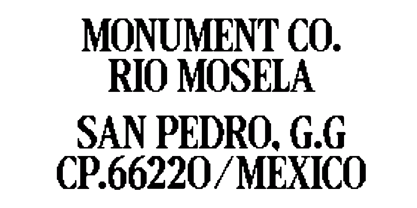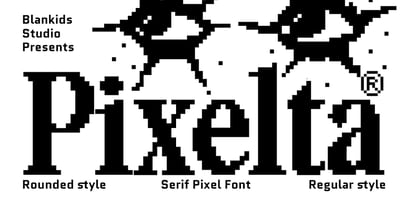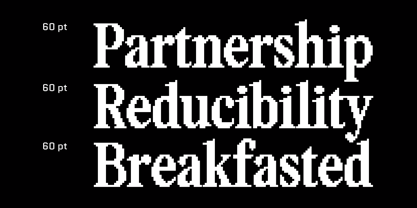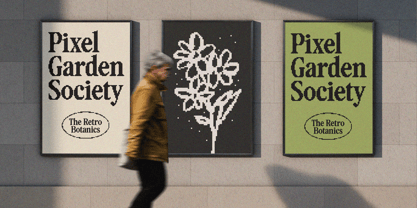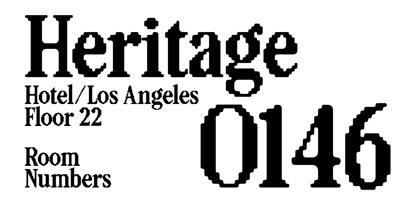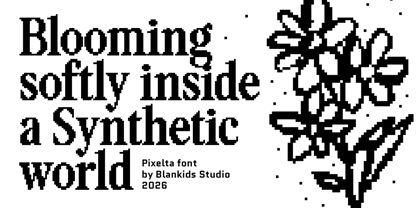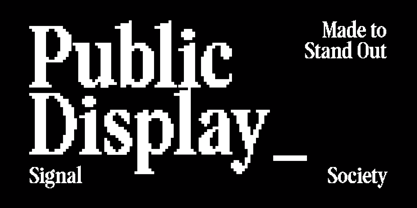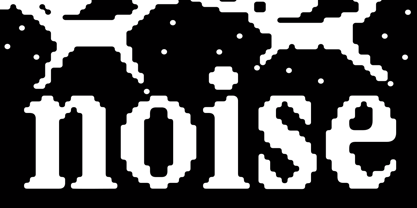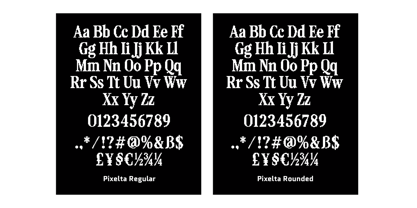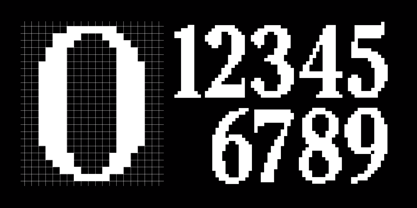
Pixelta
La famille de polices Pixelta a été conçue par Bangkit Tri Setiadi et publiée par Blankids. Pixelta contient 2 styles et options de package familial. En savoir plus sur cette famille
À propos de la famille
Pixelta is a bold serif pixel font that blends retro bitmap aesthetics with modern display clarity. Designed to stand out in headlines and branding, Pixelta brings nostalgic 8-bit charm while keeping strong readability for today’s digital and print projects.
This font comes in Regular and Rounded styles, giving you flexibility to switch between sharp vintage vibes and a softer, friendlier look. With clean pixel curves, distinctive serifs, and eye-catching numerals, Pixelta is perfect for posters, logos, packaging, gaming visuals, social media graphics, and experimental typography.
Key Features
• Serif pixel display font
• Regular & Rounded styles included
• Strong uppercase, lowercase, numerals & symbols
• Ideal for branding, posters, gaming, editorial & web graphics
• Retro aesthetic with modern usability
If you’re looking for a pixel font that feels classic yet fresh, Pixelta is made to stand out.